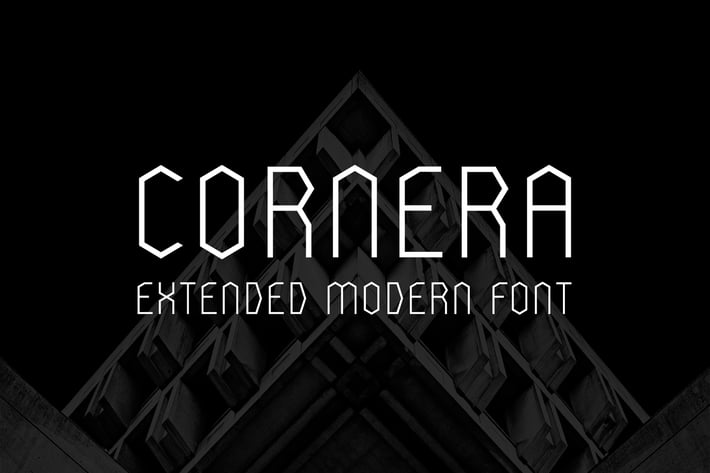
Cornera Extended Font
The concept behind this font of course are sharp corners, and the more the better, and in end result we acheived an unique and outstanding font. It's eye catching, so it makes it self usefull for logo designs, headlines and short descriptions.
Cornera comes in two weights - regular and bold.